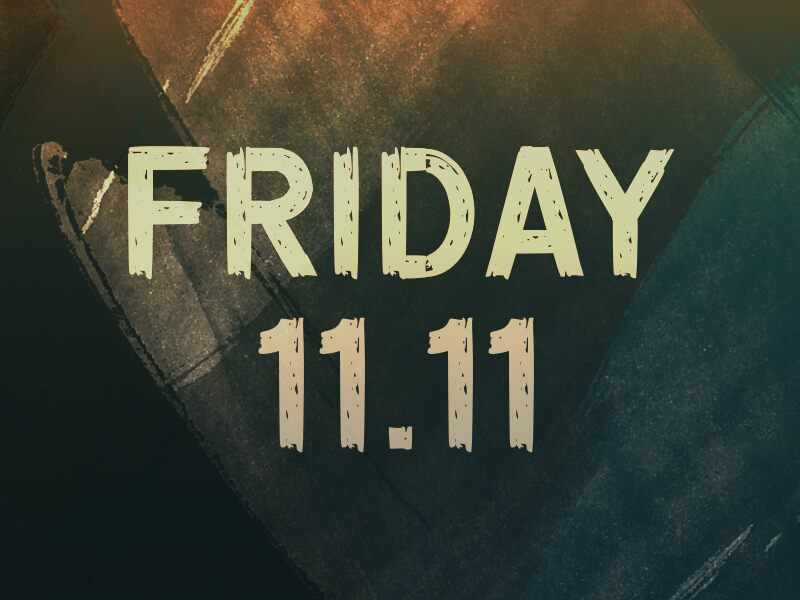
Friday 11.11
Friday 11.11 font is a display typeface created and designed by wep in an eroded style. It carries a grainy texture which contributes to its distressed appearance, an urban vibe which adds to its contemporary feel, and an overall edgy aesthetic that makes it unique. The roughness associated with the font naturally makes it suitable for those who want to opt for a natural or organic direction.
Friday 11.11 implies Friday the 10th of November, meaning that some of this font’s suggested uses could be in relation to dates. If ever you have anything coming up around this day of the year such as a flyer or concert poster for example, consider using it along with Halloween advertising, Thanksgiving ads, birthday-related cards (digital and printed), game designs and interfaces projects.